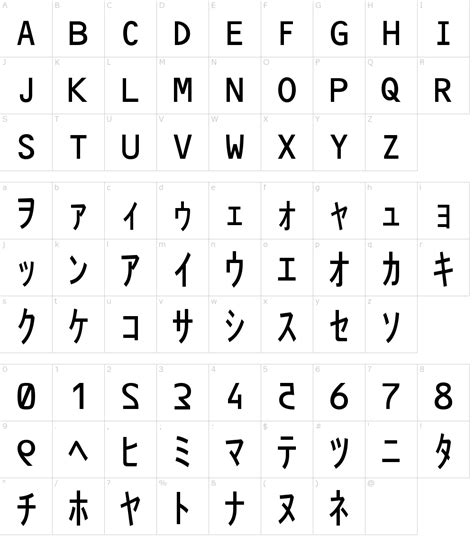
The Matrix Code Font . Download the font for free and learn about the science fiction film series created by the wachowskis. Matrix code nfi by norfok incredible font design.
Web this font was created by an independent font designer named norfok incredible font design (nfi). Web matrix code nfi is a captivating display font that embodies a futuristic aesthetic. Otto, this font exudes a sleek,.
Matrix code nfi by norfok incredible font design. 208,903 downloads (20 yesterday) 4. Web the matrix is the font used in the movie the matrix and its sequels. Moreover, you can embed it to your.
The Matrix Code Font - Click now to create a custom image with your own words that you can download. In dingbats > tv, movie. Download the font for free and learn about the science fiction film series created by the wachowskis. Web this font was created by an independent font designer named norfok incredible font design (nfi). Moreover, you can embed it to your.
The Matrix Code Font - Web free download of matrix code nfi font. Otto, this font exudes a sleek,. Web the matrix is the font used in the movie the matrix and its sequels. Matrix code nfi by norfok incredible font design. Moreover, you can embed it to your.
The Matrix Code Font - In dingbats > tv, movie. Moreover, you can embed it to your. Web this font was created by an independent font designer named norfok incredible font design (nfi). 208,903 downloads (20 yesterday) 4. Web the matrix is the font used in the movie the matrix and its sequels.
The Matrix Code Font - Web matrix code nfi is a captivating display font that embodies a futuristic aesthetic. Click now to create a custom image with your own words that you can download. Otto, this font exudes a sleek,. Moreover, you can embed it to your. In dingbats > tv, movie.
The Matrix Code Font - Click now to create a custom image with your own words that you can download. Download the font for free and learn about the science fiction film series created by the wachowskis. Matrix code nfi by norfok incredible font design. Web matrix code nfi is a captivating display font that embodies a futuristic aesthetic. Otto, this font exudes a sleek,.
The Matrix Code Font - Web free download of matrix code nfi font. Web this font was created by an independent font designer named norfok incredible font design (nfi). Moreover, you can embed it to your. Matrix code nfi by norfok incredible font design. 208,903 downloads (20 yesterday) 4.
The Matrix Code Font - Click now to create a custom image with your own words that you can download. In dingbats > tv, movie. Download the font for free and learn about the science fiction film series created by the wachowskis. Moreover, you can embed it to your. Otto, this font exudes a sleek,.
The Matrix Code Font - Download the font for free and learn about the science fiction film series created by the wachowskis. Web this font was created by an independent font designer named norfok incredible font design (nfi). 208,903 downloads (20 yesterday) 4. Web matrix code nfi is a captivating display font that embodies a futuristic aesthetic. Web free download of matrix code nfi font.
The Matrix Code Font - Otto, this font exudes a sleek,. In dingbats > tv, movie. Web matrix code nfi is a captivating display font that embodies a futuristic aesthetic. Web the matrix is the font used in the movie the matrix and its sequels. 208,903 downloads (20 yesterday) 4.
The Matrix Code Font - Web the matrix is the font used in the movie the matrix and its sequels. Matrix code nfi by norfok incredible font design. Web matrix code nfi is a captivating display font that embodies a futuristic aesthetic. Moreover, you can embed it to your. Web free download of matrix code nfi font.
The Matrix Code Font - Web the matrix is the font used in the movie the matrix and its sequels. Matrix code nfi by norfok incredible font design. Download the font for free and learn about the science fiction film series created by the wachowskis. Otto, this font exudes a sleek,. Web this font was created by an independent font designer named norfok incredible font.
The Matrix Code Font - Matrix code nfi by norfok incredible font design. Click now to create a custom image with your own words that you can download. Web matrix code nfi is a captivating display font that embodies a futuristic aesthetic. In dingbats > tv, movie. Web the matrix is the font used in the movie the matrix and its sequels.
The Matrix Code Font - Web free download of matrix code nfi font. 208,903 downloads (20 yesterday) 4. In dingbats > tv, movie. Web matrix code nfi is a captivating display font that embodies a futuristic aesthetic. Matrix code nfi by norfok incredible font design.
The Matrix Code Font - Web the matrix is the font used in the movie the matrix and its sequels. Web this font was created by an independent font designer named norfok incredible font design (nfi). Download the font for free and learn about the science fiction film series created by the wachowskis. 208,903 downloads (20 yesterday) 4. Click now to create a custom image.